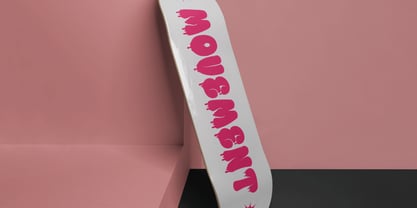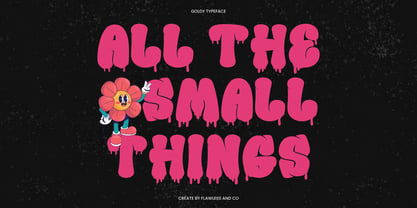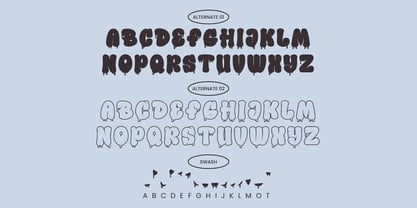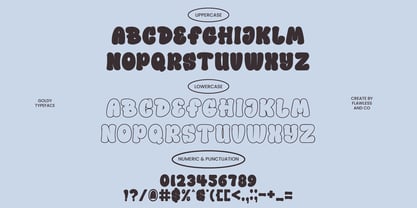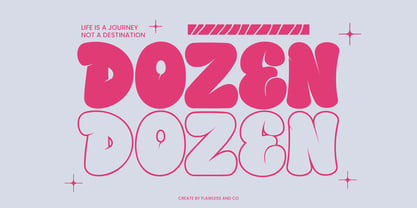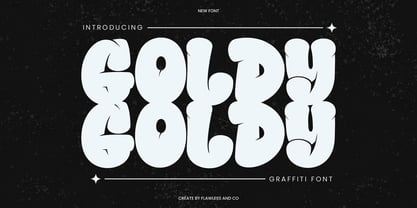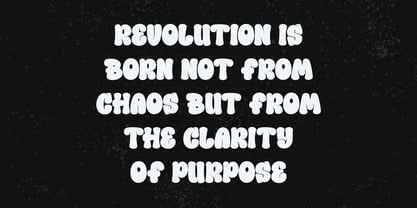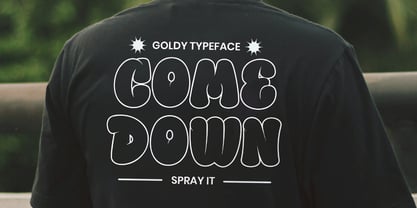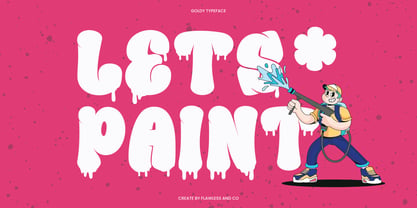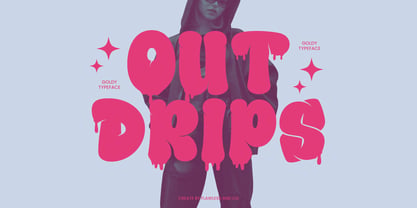
Goldy
por Flawlessandco
La familia tipográfica Goldy fue diseñada por Achmad Yani y publicada por Flawlessandco. Goldy contiene 1 estilos. Más información sobre esta familia
GOLDY Graffiti is a bold and playful display font that channels the raw energy of street art. Inspired by chunky bubble lettering and classic graffiti drip effects, GOLDY Graffiti delivers a loud, rebellious vibe with every character. This font isn’t just for reading—it’s for making statements. From eye-catching urban posters and music cover designs to streetwear branding, stickers, and edgy merchandise, GOLDY Graffiti brings a hand-drawn attitude that’s full of fun and expression. Perfect for creators who want their designs to stand out with personality and a dose of underground spirit.
Diseñadores: Achmad Yani
Fundición: Flawlessandco